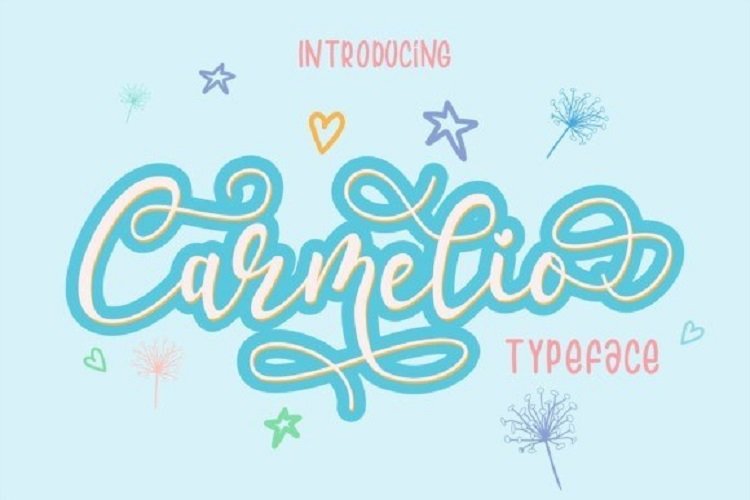
Carmelio Font
Introducing Carmelio. A bold script font that inspired by hand lettering stylistic with modern calligraphy. Carmelio has pretty much alternatives glyphs choice in the pack.
Carmelio font really perfect for creative project such as logo, T-shirt / apparel, badge, invitation, packaging,headline, poster, magazine, greeting card, and wedding invitation.